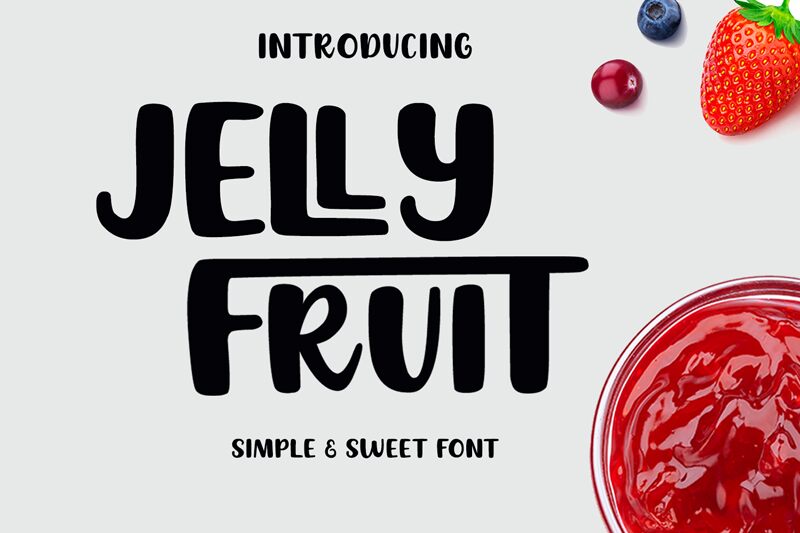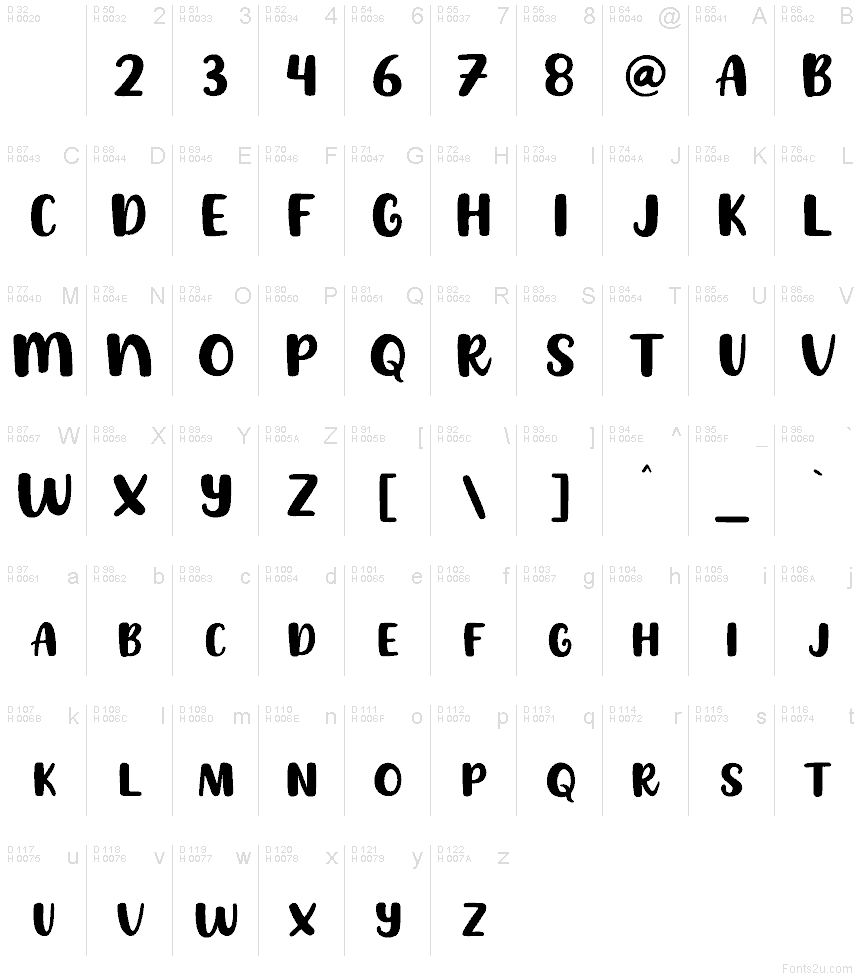
JELLYFRUIT
Jellyfruit font by girinesia.std is a modern display typeface with a cartoon style and bold letters. It has an informal and casual look that feels both fun and friendly to the eye. The font is also chunky which allows it to be easily readable no matter the size in which it is used.